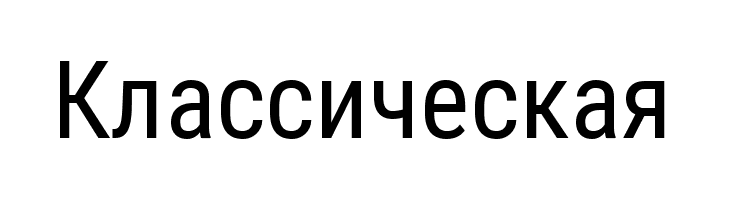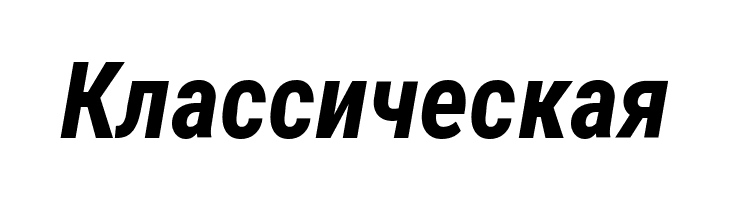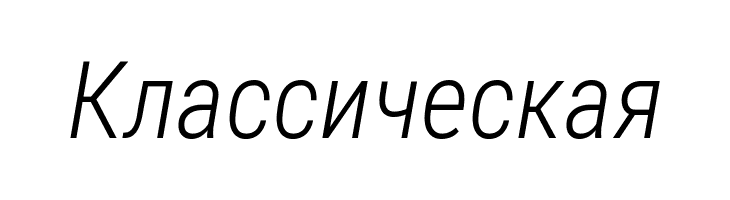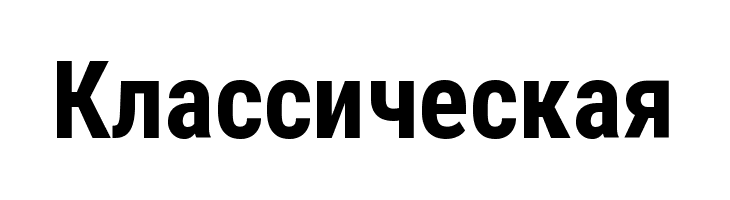
A modern, bold, and condensed sans-serif font with excellent legibility.
A modern, condensed, bold italic font with a sleek and professional appearance.
A modern, condensed sans-serif font with a light and clean design.
A sleek, modern, condensed, light italic font with a clean and elegant style.
A clean, modern, and condensed typeface with uniform stroke width and excellent readability.